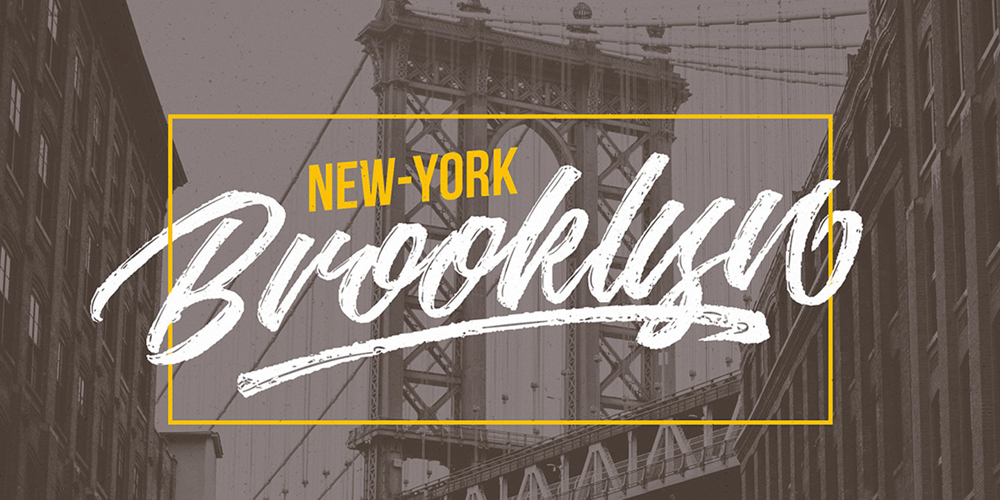
Jouska Font Family was designed by Hendry Juanda and published by Letterhend. Jouska contains 4 styles and family package options. Jouska Textured Brush Script is a beautifully typeface, manually brushed by hand. The texture gives a gritty and grunge look while the regular style gives a natural and casual feel. Perfect combination to use for any design needs such as logotypes, badges, sign boards, posters, headline texts, clothing, wedding invitations, and more.This font comes with many OpenType features like ligatures, stylistic alternates, contextual alternates, swashes, and multi-lingual support.